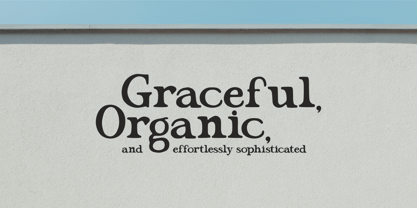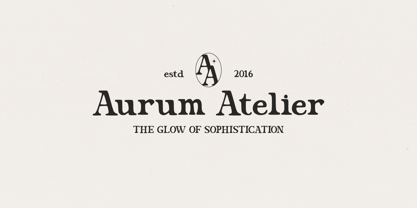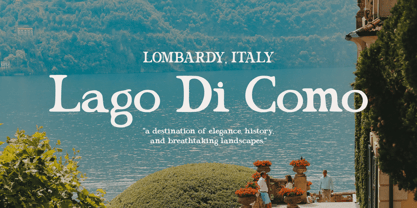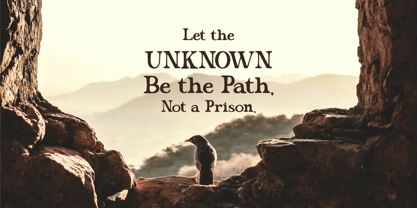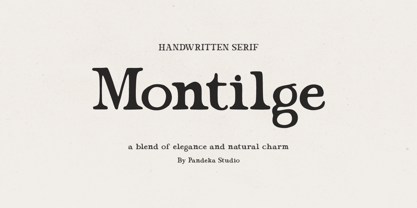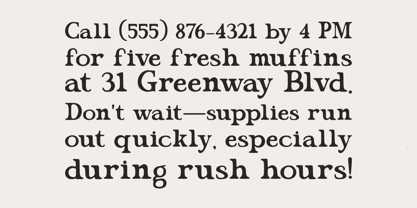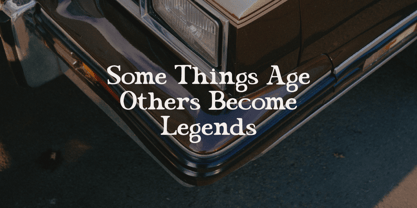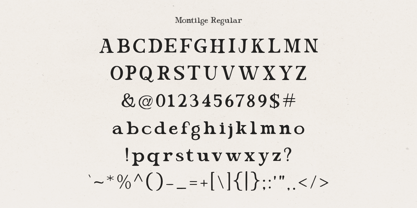
Montilge
by Pandeka Studio
The Montilge Font Family was designed by Sagara Nararya and published by Pandeka Studio. Montilge contains 1 styles.
Montilge - A natural handwritten serif font with elegant typography and a rustic aesthetic. Perfect for timeless designs, classic lettering, and authentic projects like branding, editorial layouts, and packaging. Montilge’s unique style adds a touch of warmth and sophistication to any creative work.
• Full Character Set: Uppercase, lowercase, numbers, symbols, and punctuation
Designers: Sagara Nararya
Publisher: Pandeka Studio
Foundry: Pandeka Studio
Design Owner: Pandeka Studio